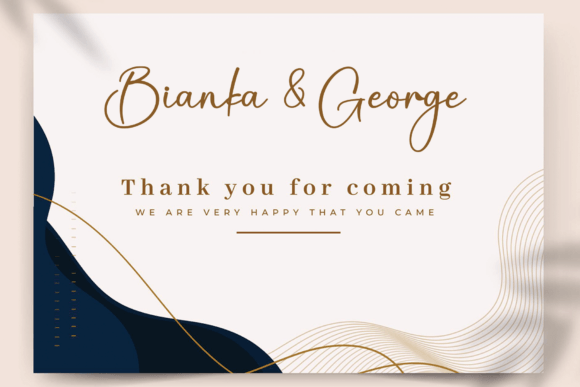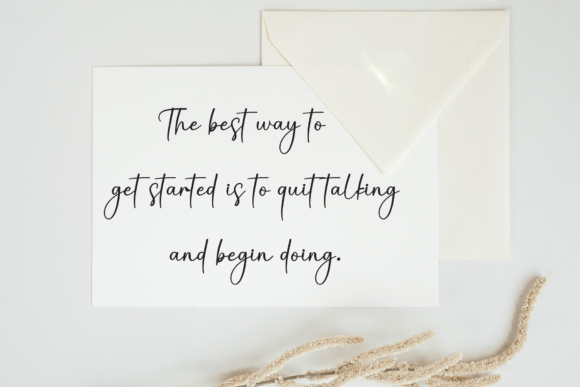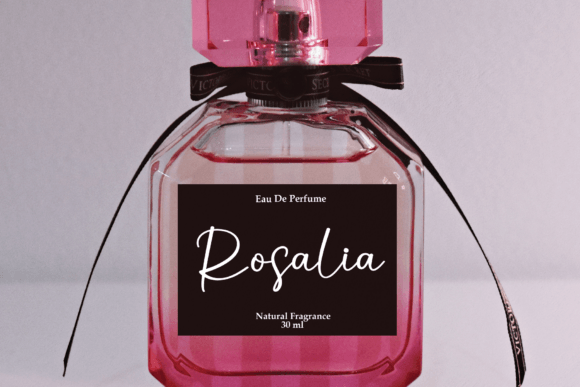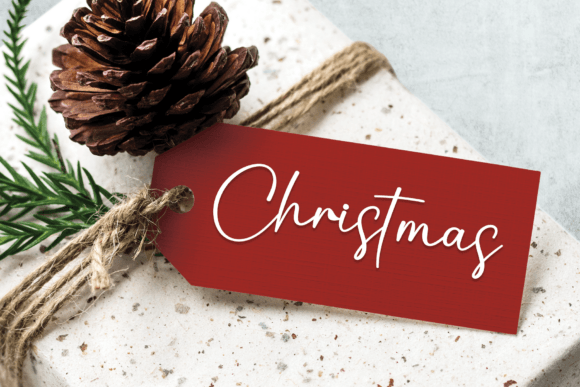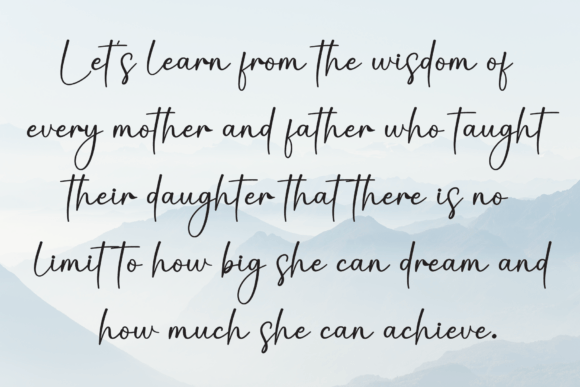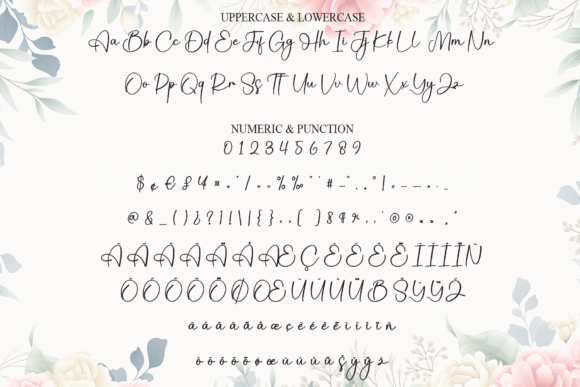
Adding a Personal Touch: The Kamala Font
Have you ever been working on a project, pouring your heart and soul into it, only to feel like something’s missing? A dash of personality, a pinch of flair, a sprinkle of whimsy? That’s where the Kamala Font comes in – a modern, handwritten font that’s as stylish as it is casual.
With its smooth, flowing lines, the Kamala Font is perfect for adding a relaxed, creative vibe to your designs. Whether you’re a graphic designer, a writer, or a crafter, this font is sure to bring a personal touch to your work. And that’s exactly why it’s so valuable for designers – it allows them to express their unique style and connect with their audience on a deeper level.
Kamala Font Key Features
- Font Family: Kamala is a unique and elegant script font with a mix of modern and traditional elements.
- Language Support: Kamala supports a wide range of languages, including Latin, Cyrillic, and Greek alphabets, making it a versatile font for international designs.
- Unique Characteristics: Kamala’s unique blend of modern and traditional elements, along with its elegant script style, makes it an ideal choice for creating sophisticated and eye-catching designs.
Kamala Font Review
First off, I’d like to say that I love the unique, hand-painted feel of the Kamala font ✨. It’s perfect for adding a touch of whimsy and personality to your designs. The font also has a nice balance of elegance and playfulness, making it suitable for a wide range of projects, from branding to editorial content.
Here are some specific features that I think work well in the Kamala font:
- Its versatility in terms of style and application
- Excellent legibility, even at small font sizes
- Beautiful, high-quality font variations (e.g. bold, italic, etc.)
However, there are a few limitations that I’d like to mention ⚠️:
- Some of the characters may not be as smooth or polished as others
- The font may not be suitable for use in extremely formal or professional settings
- It may require some extra setup or customization to get it to look its best
Overall, I think the Kamala font is a great choice for designers who want to add some personality and flair to their work. While it may not be perfect, its unique feel and high-quality variations make it a valuable addition to any design library.
Tips for Getting the Most Out of Kamala Font
To get the most out of the Kamala font, try the following:
- Use the font in combination with other elegant fonts to create a sophisticated look.
- Use the font to highlight important text or to create a sense of drama.
Common Use Cases for Kamala Font
The Kamala font is perfect for:
- Alternatives to Kamala Font for Designers
Montserrat Font is a popular sans-serif font designed by Julieta Ulanovsky. It’s perfect for modern and urban designs. This font has a strong geometric feel and is highly legible even at small font sizes. Compared to Kamala Font, Montserrat Font has a more aggressive and modern look, making it ideal for digital designs, logos, and headings.
Lato Font is a sans-serif font designed by Łukasz Dziedzic. It’s a clean and modern font suitable for body text and headings. Lato Font is highly versatile and works well for various designs, from corporate to creative projects. Compared to Kamala Font, Lato Font has a more elegant and refined look, making it ideal for designs that require a touch of sophistication.
Open Sans Font is a popular sans-serif font designed by Steve Matteson. It’s highly legible and suitable for body text, headings, and even titles. Open Sans Font has a clean and modern look, making it perfect for digital designs, websites, and mobile apps. Compared to Kamala Font, Open Sans Font has a more neutral and approachable look, making it ideal for designs that require a friendly and approachable tone.
Q: Does Kamala Font support multilingual characters?
Yes, Kamala Font includes a wide range of multilingual characters, including Latin, Cyrillic, and Devanagari scripts. This makes it an ideal choice for designers working on international projects.